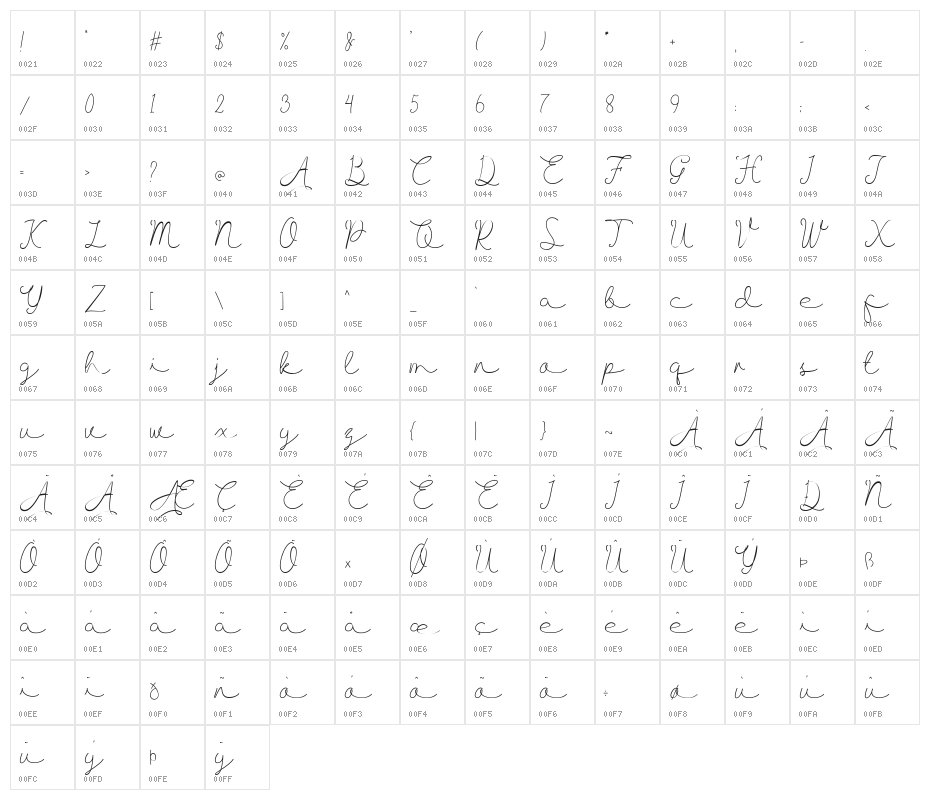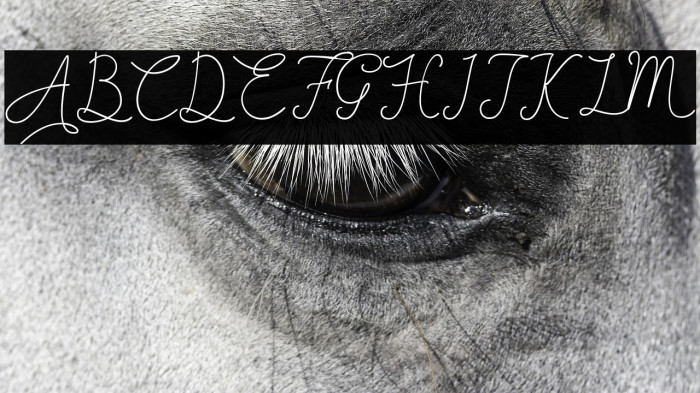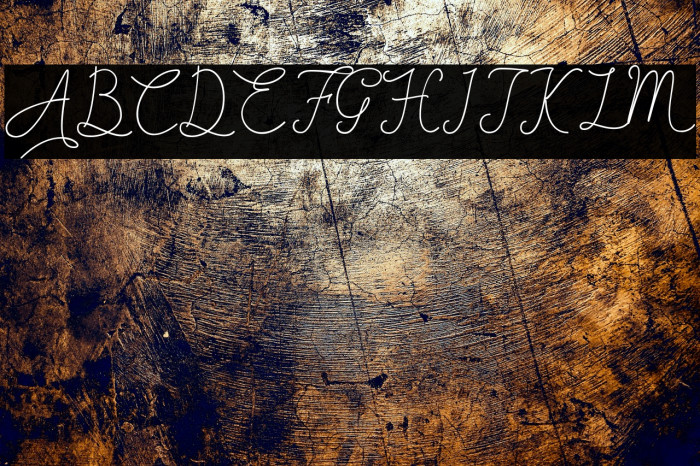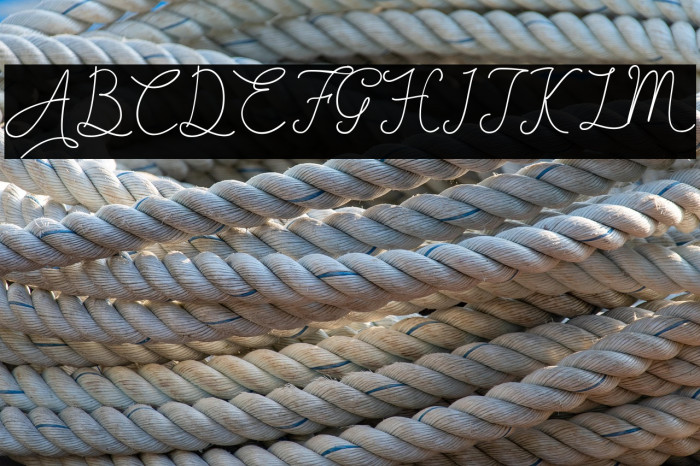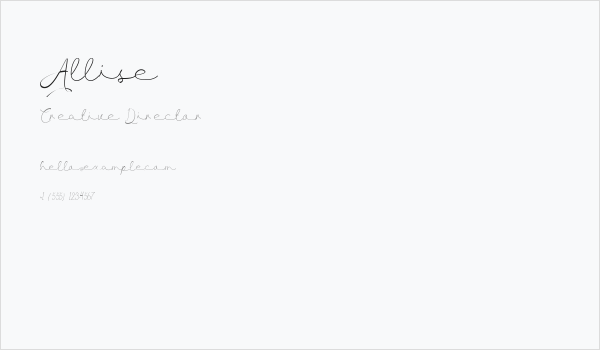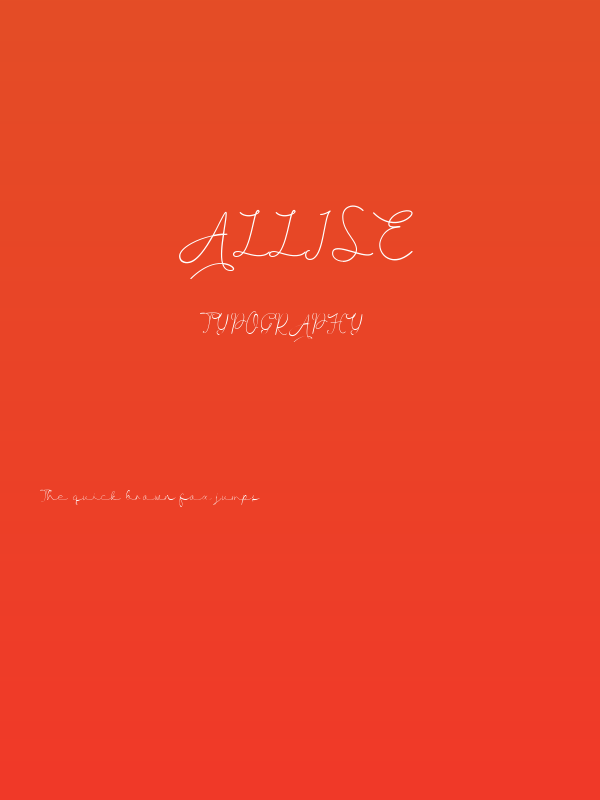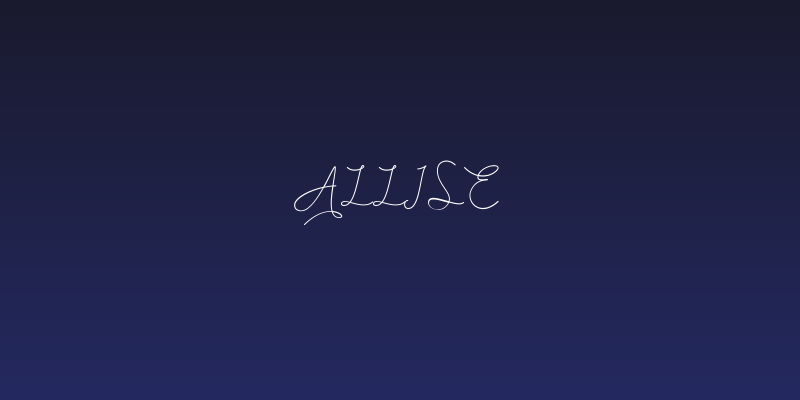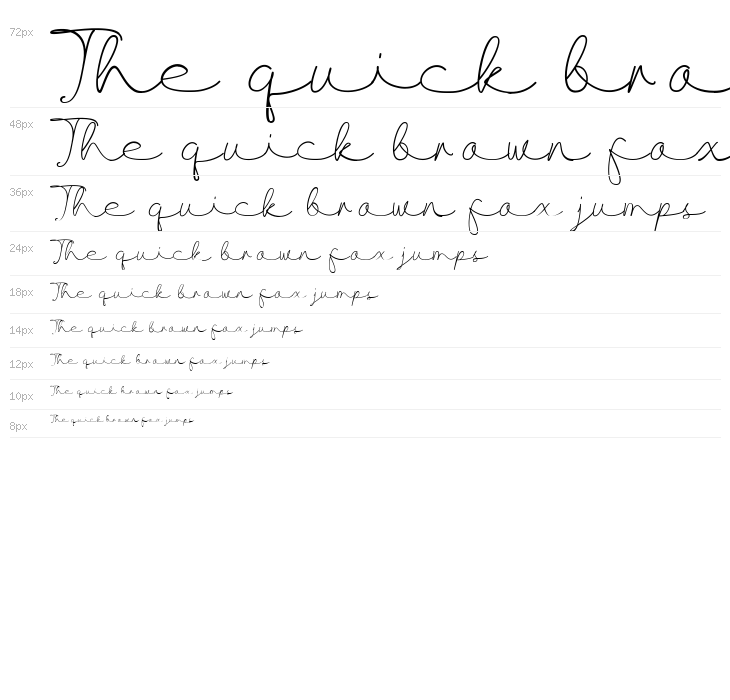
Allise Font
Allise Description
This elegant script font features a flowing, cursive style with smooth, continuous strokes that give it a handwritten appearance. The uppercase letters are slightly more ornate, with subtle flourishes that add a touch of sophistication. The lowercase letters maintain a consistent flow, enhancing readability while retaining a personal, artistic touch. Numbers and special characters are designed to match the overall aesthetic, ensuring a cohesive look across all text elements. The font's delicate lines and graceful curves make it ideal for projects that require a personal or elegant touch, such as invitations, greeting cards, or branding materials.
| Use Case | Headlines, Invitations, Branding |
| Proposed Projects | Ideal for wedding invitations, personal branding, greeting cards, and elegant stationery. |